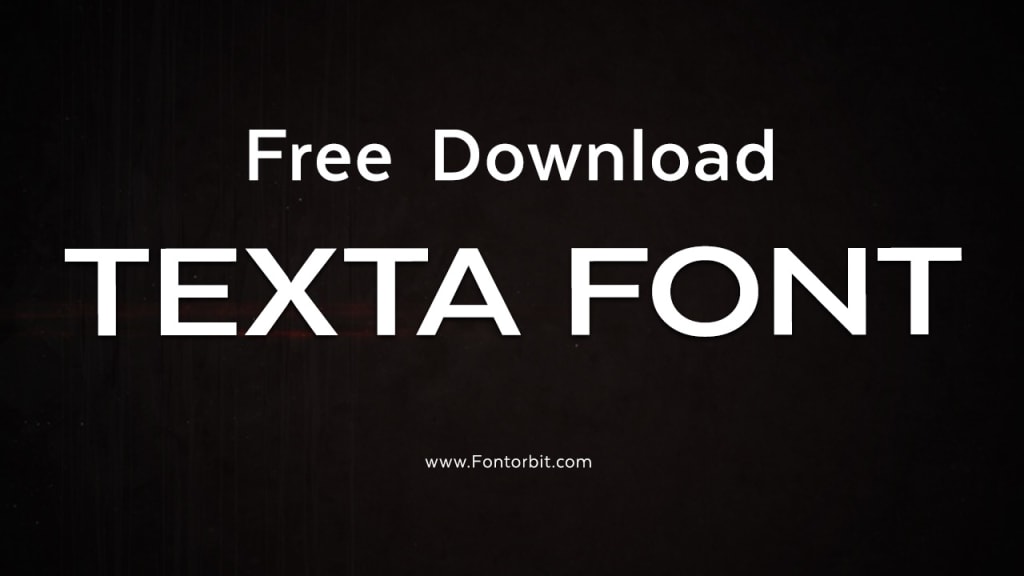
Texta Font: A Modern Typeface for Creative Projects
Texta Font
The Texta font has quickly become a popular choice for designers, writers, and creative professionals who need a typeface that blends modern aesthetics with readability.
This versatile font offers a clean and contemporary look, making it ideal for a variety of applications, from branding to digital content. In this article, we will explore the features, uses, and benefits of the Texta font, and why it has garnered attention in the design community.
What is Texta Font?
Texta is a sans-serif typeface designed with modernity in mind. The font offers clear lines and smooth curves that create a professional yet approachable look. Whether used for headlines, body text, or logos, Texta's simple design makes it a great fit for diverse projects. Its geometric structure and well-balanced letterforms provide both elegance and functionality, which makes it easy to read on screens and print alike.
Key Features of Texta Font
Clean and Geometric Design: Texta's design focuses on simplicity and symmetry. The balanced letterforms ensure that it remains legible even at small sizes, making it suitable for various design needs.
Versatility: The Texta font family includes multiple weights and styles, from light to bold, and regular to italic. This flexibility allows designers to use it in a wide range of applications, from digital interfaces to printed materials.
Wide Language Support: Texta supports a wide variety of languages, making it accessible for international projects. This feature is especially valuable for designers working on global campaigns.
Highly Readable: The well-defined characters and balanced proportions improve legibility, making it an excellent choice for both print and screen-based designs.
Uses of Texta Font
The Texta font's versatility makes it ideal for a variety of design purposes:
Branding: Due to its modern and clean aesthetic, Texta is often used in logo design and brand identity development. Its simplicity allows it to convey a professional image without overwhelming the viewer.
Web Design: Texta's clarity and readability make it a strong choice for web typography. It works well for both body text and headlines, ensuring a pleasant reading experience on websites.
Editorial Design: Whether in magazines, newspapers, or brochures, Texta works well for editorial layouts. Its neutrality and readability ensure that the text remains clear and accessible to readers.
Advertising: With its bold and clean lines, Texta is often used in advertising materials, where clarity is essential for catching the viewer's attention quickly.
Why Choose Texta Font?
Texta is an excellent choice for those who want a typeface that combines modern aesthetics with usability. Its minimalist design ensures that it remains timeless, while its wide range of weights and styles makes it adaptable for various design contexts. Whether you're working on a digital product, a branding project, or a print campaign, Texta provides the necessary tools to make your work stand out.
Conclusion
Texta is a sleek and modern font that offers flexibility and readability for a range of design projects. Its geometric style and simple structure make it an excellent choice for branding, web design, and editorial work. Whether you're creating a logo, a website, or a print ad, Texta is a dependable and stylish font that can elevate your design work.
FAQs About Texta Font
1. Is Texta font free to use?
Yes, Texta is available for both personal and commercial use, but it's always a good idea to check the specific license terms when downloading or purchasing the font.
2. Can Texta be used for body text?
Absolutely! Texta's readability and clean design make it perfect for body text in both print and digital formats.
3. What is the best use case for Texta font?
Texta works best for modern, minimalist design projects, including branding, web design, advertising, and editorial work.
4. Does Texta come in multiple weights and styles?
Yes, Texta is available in a variety of weights and styles, such as regular, bold, light, and italic, offering flexibility for different design applications.
5. Can I use Texta for logos and branding?
Yes, Texta’s clean and geometric design makes it a great choice for logo design and branding, especially for businesses that want to project a professional and modern image.